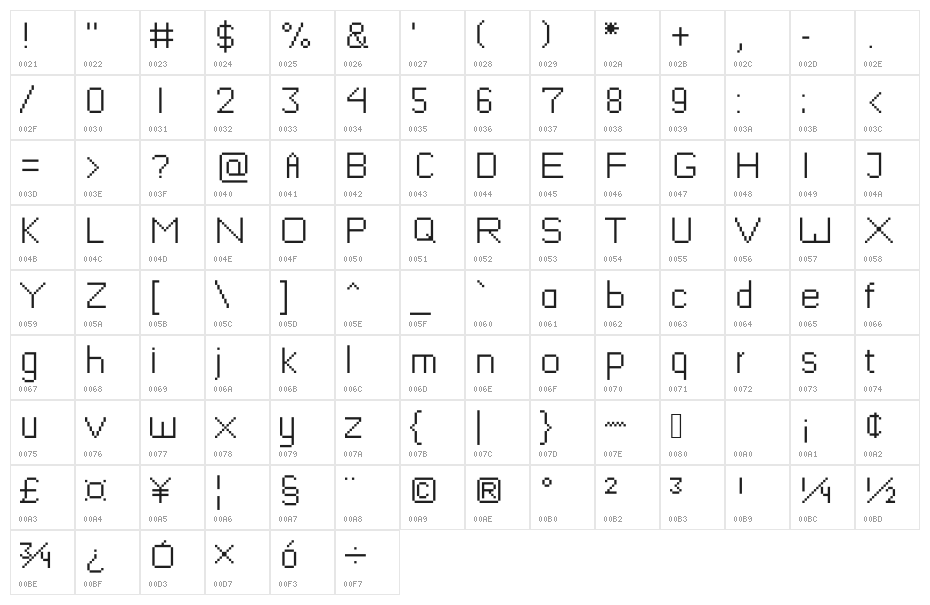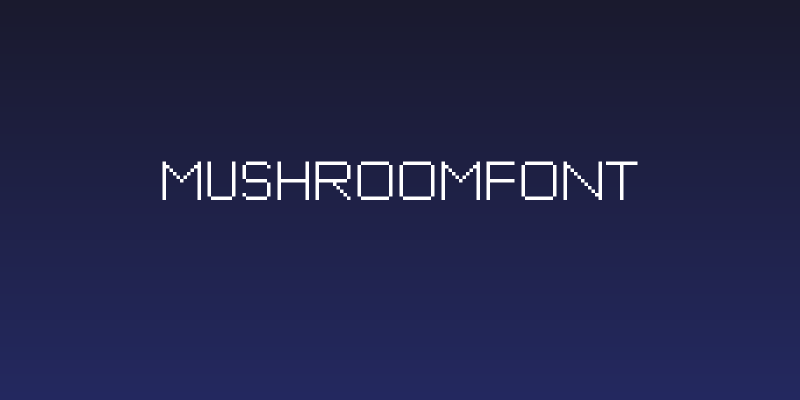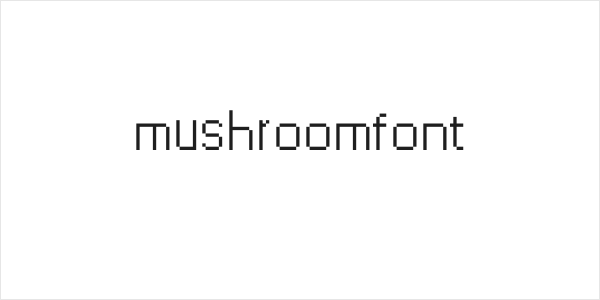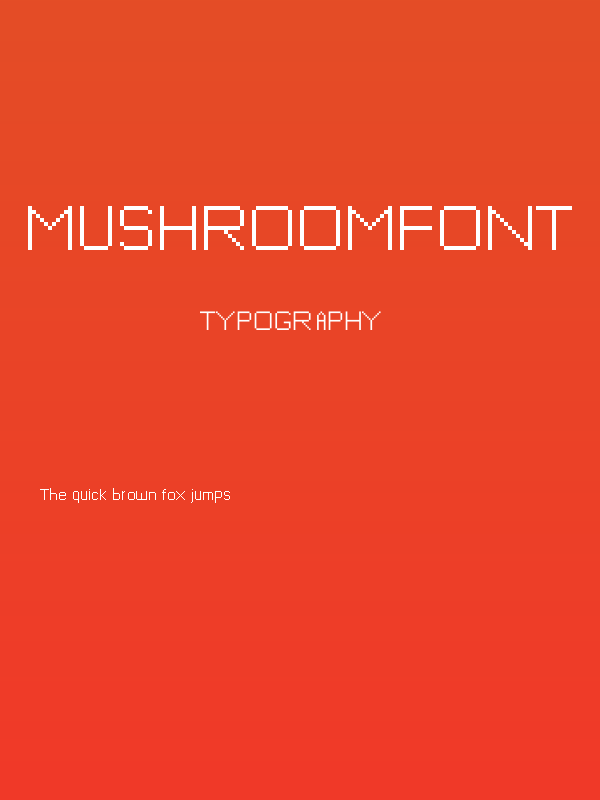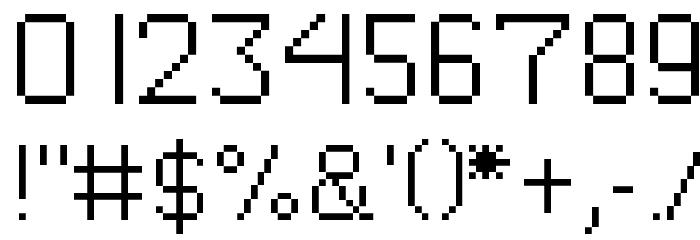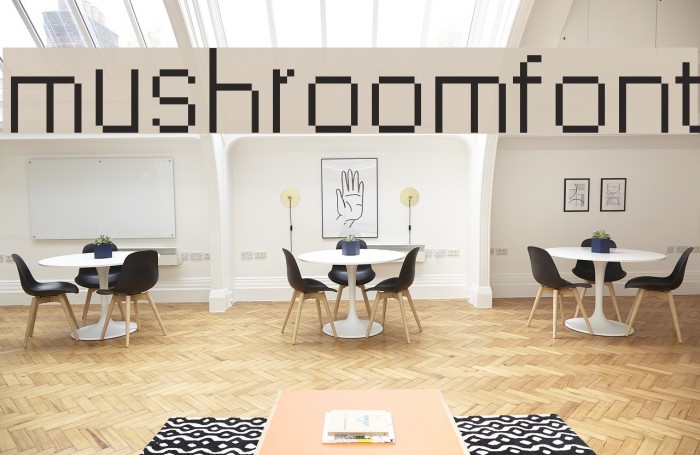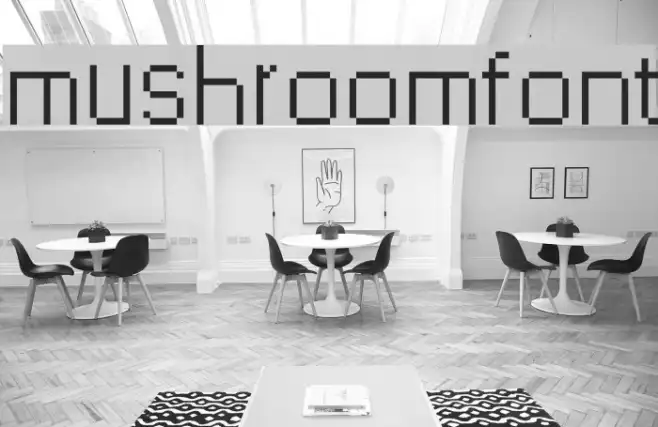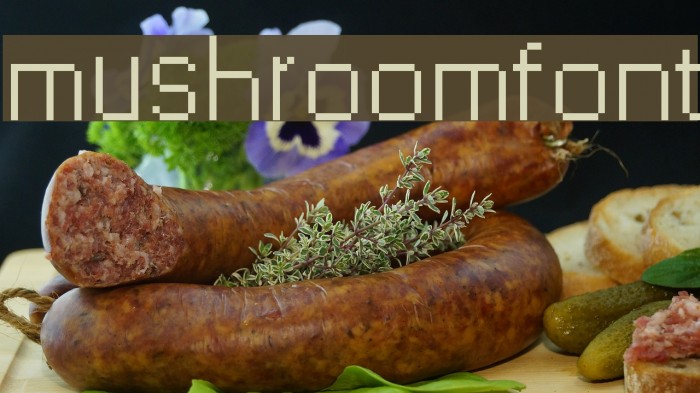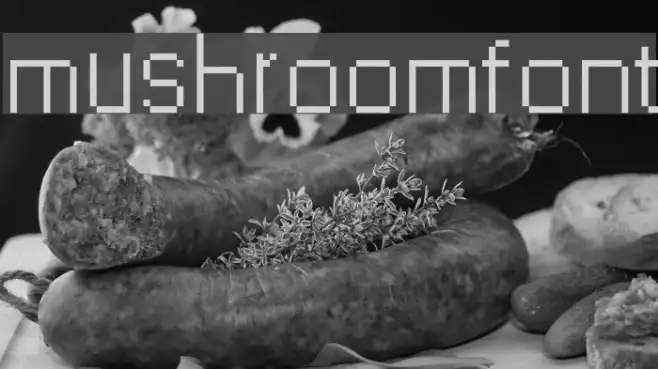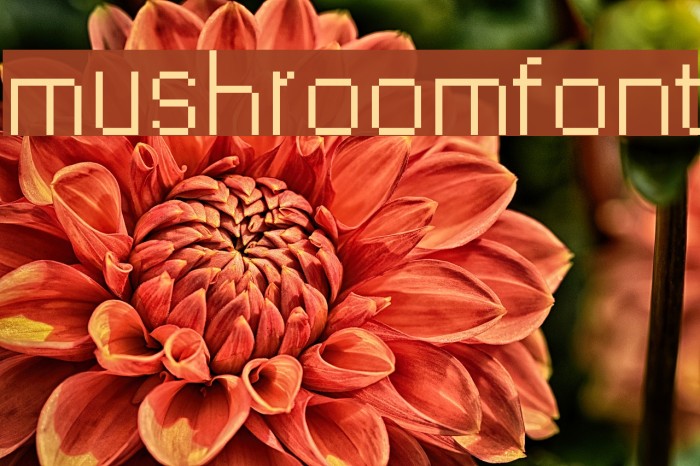
mushroomfont Font
mushroomfont Description
This font features a pixelated, grid-like design reminiscent of early digital displays or retro video games. Each character is composed of small square blocks, giving it a distinctly digital and geometric appearance. The uppercase and lowercase letters maintain a consistent height, with sharp angles and straight lines dominating the design. Numbers and special characters follow the same pixelated style, ensuring uniformity across all elements. This font's unique style evokes a sense of nostalgia while maintaining a modern edge, making it suitable for projects that aim to blend retro aesthetics with contemporary design.